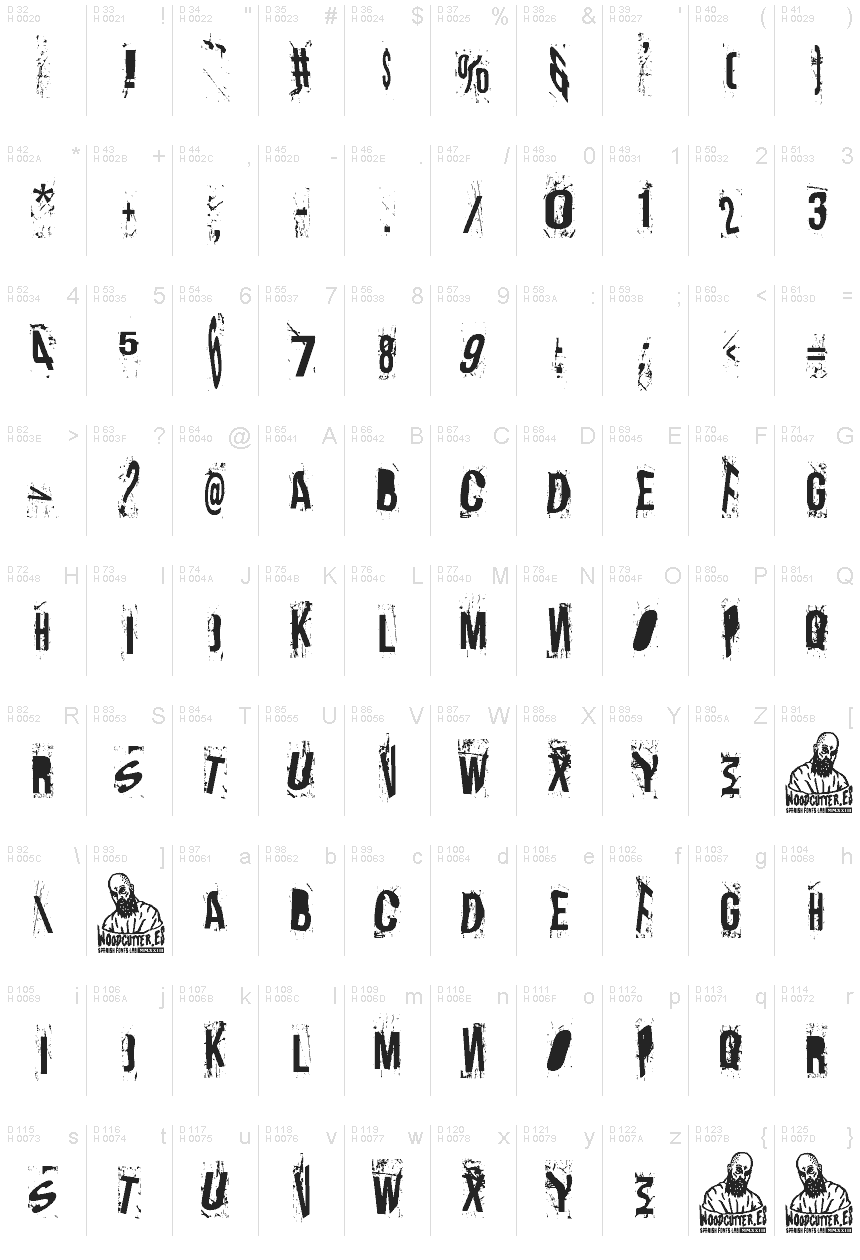
The end of work day
The end of work day font designed by Woodcutter is an expressive condensed display font with a chaotic aesthetic. The distorted shapes exhibit irregular and grunge-textured characters in a distressed appearance. The details bring the font to life, making it an exceptional choice for different creative projects.
Fuel your typography with this free experimental typeface that can be applied to movie posters, book covers, comics, headlines, band t-shirts, streetwear fashion items, concert banners and flyers. It’s applicable for brands and identities built around personal blogs or other digital platforms as well.
The end of the workday.